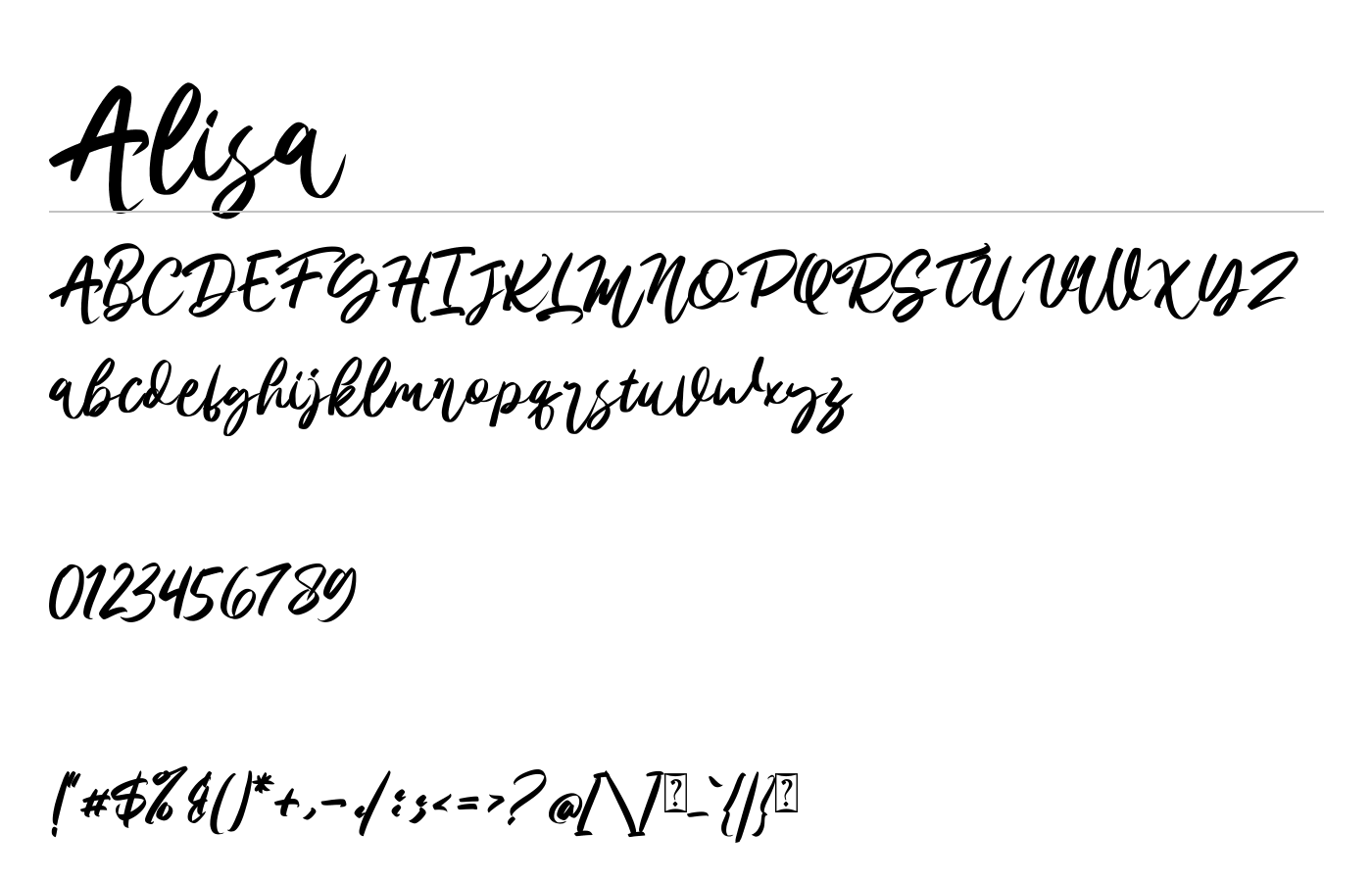
Alisa is an elegant and lively script font with a smooth, flowing style that mimics natural handwriting. Its moderate weight and slightly condensed letterforms create a modern yet approachable feel, making it perfect for branding, invitations, and creative projects that seek a personal, friendly touch. This font works well in both headlines and decorative text, bringing warmth and sophistication to any design.
Alisa Font
About Alisa Font
| Font family | Alisa Font |
| Designer | Omotu Studio 2020 |